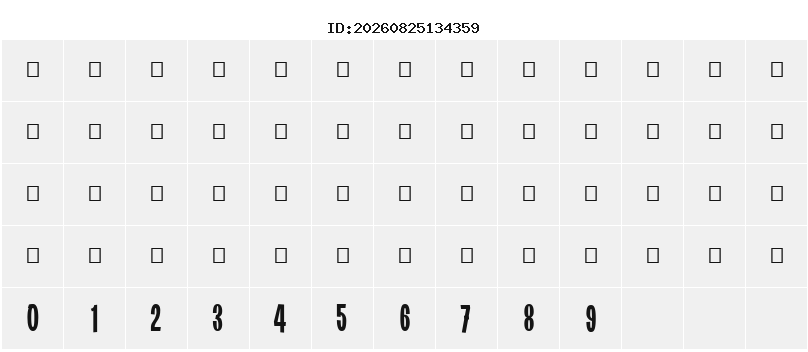
• Font Name: SVOBODA
• Font ID: SVOBODA
• Full Font Name: SVOBODA
• Version: Mayn Kampf
• PostScript Name: SVOBODA
• Character Count: 189
About SVOBODA.ttf
SVOBODA.ttf is a modern, elegant sans-serif font designed for ultimate readability and visual harmony. Perfect for branding, headlines, web design, and print materials.